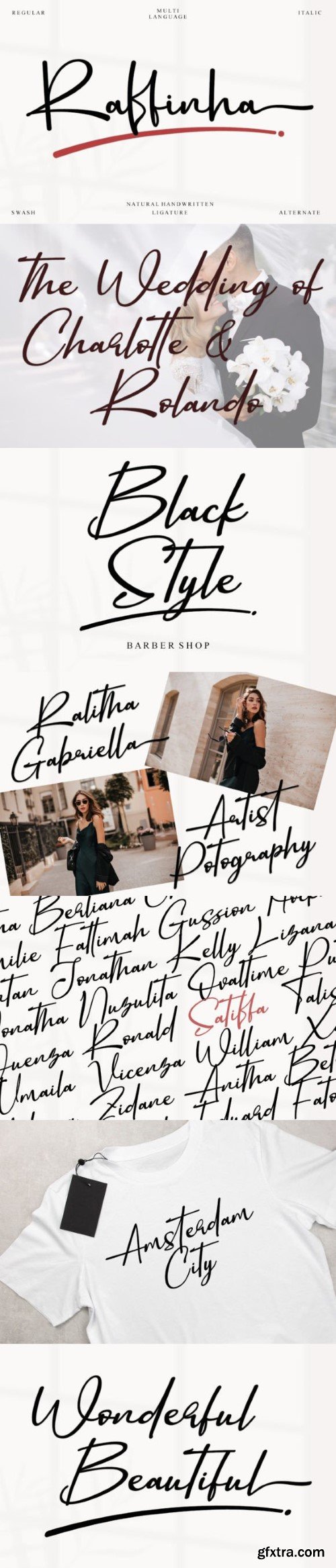
拉菲纳字体
Meet Raffinha – your go-to font for genuine and creative artistry. A handmade font that mimics natural handwriting, Raffinha adds natural flow and original expression to all your design projects. Whenever you need a human touch or the graceful beauty of natural strokes, Raffinha is the partner font that ensures to enhance your designs. Perfect for logos, invitations, or any artwork where character and uniqueness count. Discover the special appeal of Raffinha, and let the pulse of your visual narration come to life.